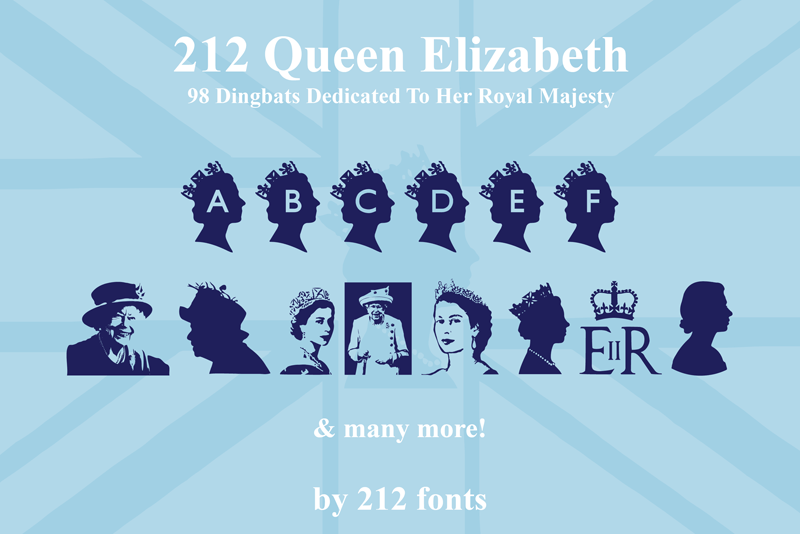
Queen Elizabeth is a 98-glyph dingbat font dedicated to all things related to Her Majesty, may she rest in peace! It is Free. Check out my other fonts or request a custom one here: https://www.twenty3stars.com/collections/fonts-by-212-fonts https://www.creativefabrica.com/ref/236350/ https://fontbundles.net/212-fonts Donations appreciated! |